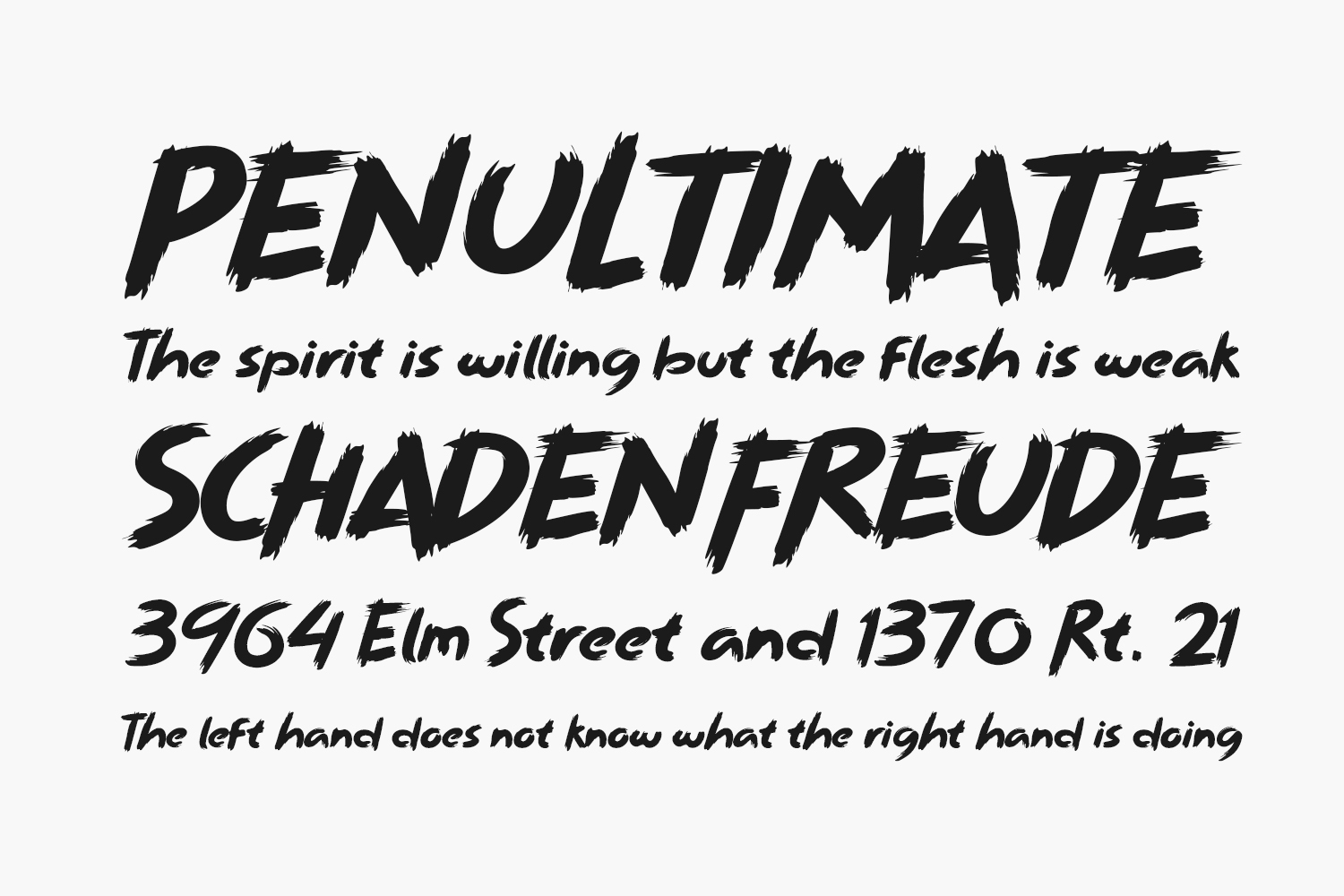
Introducing Bromph Town Free Font, a trendy display font with a vibrant paint-brushed style. Perfect for street-inspired projects, crafts, and casual designs, its playful vibe adds flair to posters, book titles, movie titles, and more creative endeavors. Download the font for free if you need it for personal use or purchase the full version for commercial use.